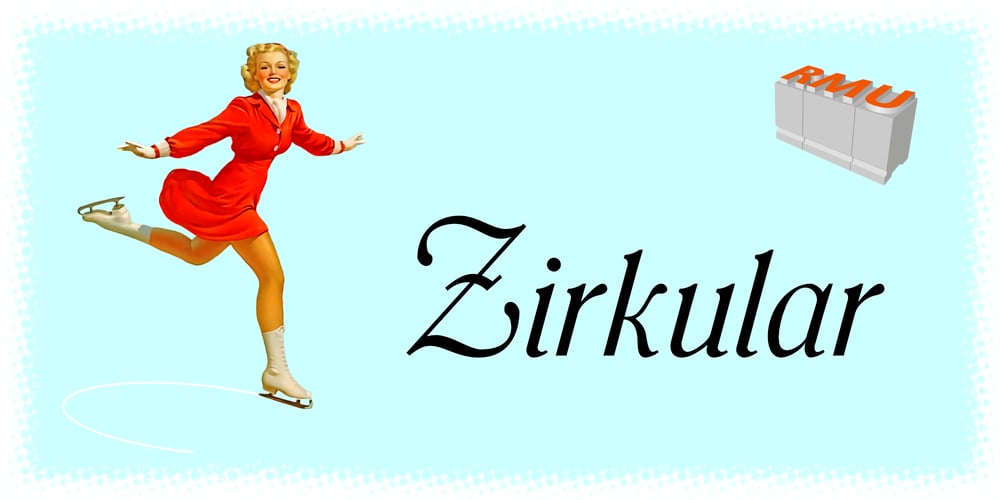
Zirkular
Zirkular font
Zirkular Font Family was designed by Ralph M. Unger and published by RMU. Zirkular contains 1 styles and family package options. Zirkular is a beautiful and versatile display font. Use it for titles and subtitles, invitations, menus, diplomas et cetera.It is recommended to also activate the discretionary ligature feature. The letter T has an alternative variant.